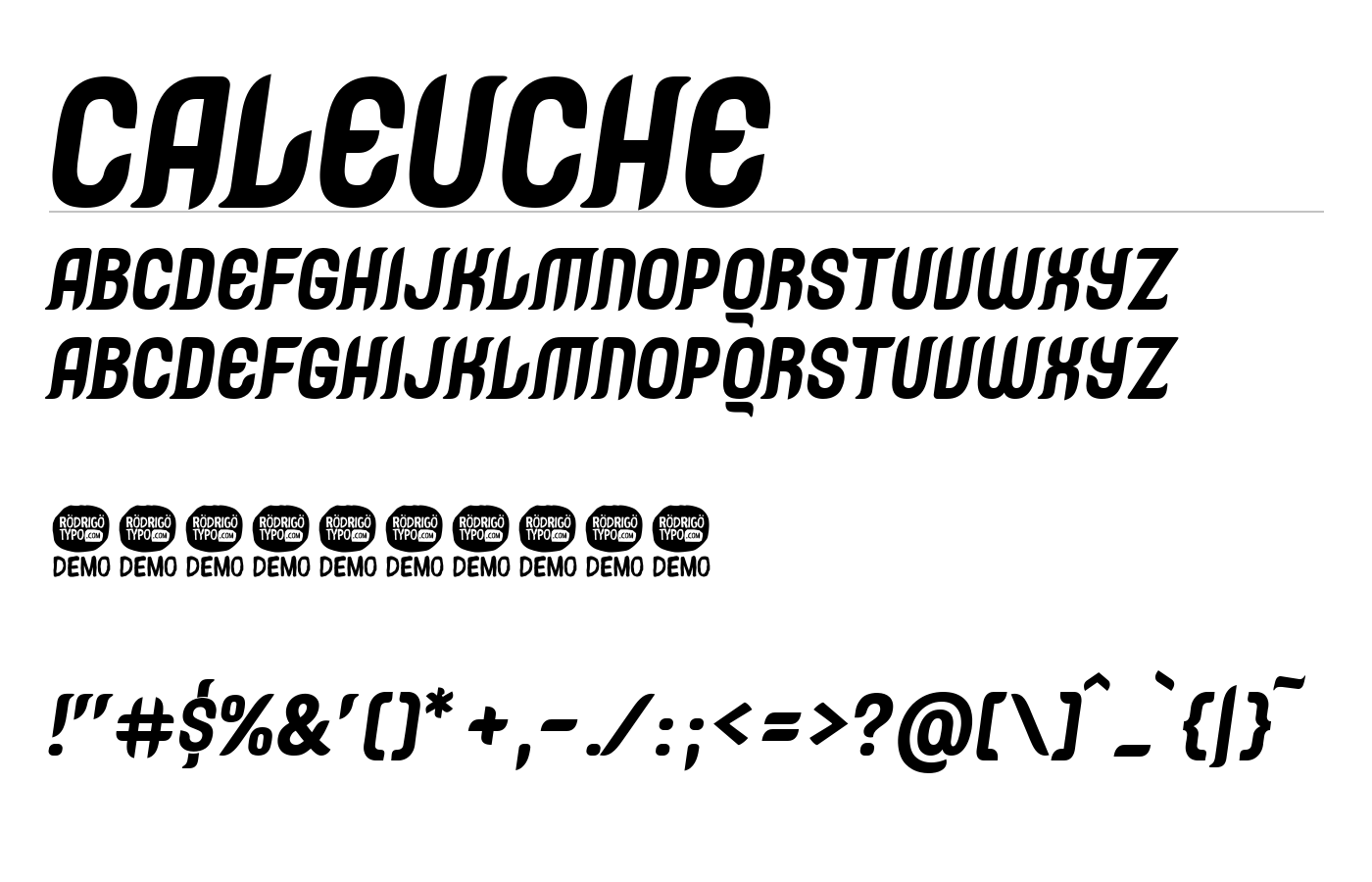
Caleuche is a bold, condensed sans serif font with a distinctive slanted, italic style that gives it a dynamic and modern feel. Its thick strokes and slightly rounded edges convey strength while maintaining a friendly, approachable vibe, making it ideal for energetic branding, headlines, and packaging that require a strong visual impact. This font works well where a contemporary and confident statement is needed, blending modernity with readability.
Caleuche Font